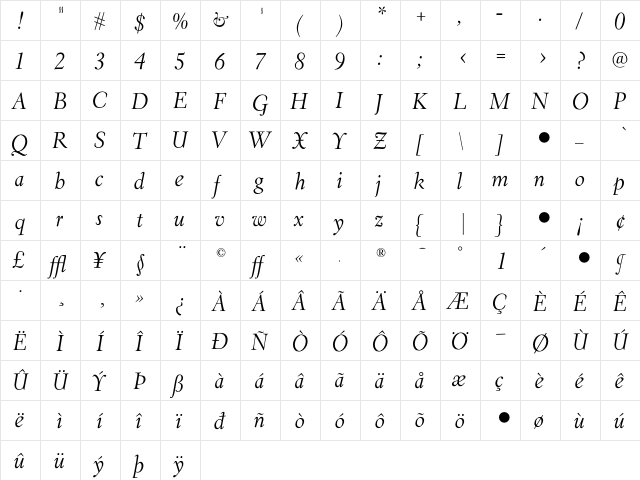
EldoradoDisplay Italic
Design Context for EldoradoDisplay Typeface
EldoradoDisplay brings ornamental detail and strong personality to headlines and identities, where visual impact matters more than quiet functionality. Its italic angle brings a sense of urgency and motion to the letterforms.
Font Pairing: Pair with a clean neutral sans-serif for body copy to let EldoradoDisplay's character lead without overwhelming the composition.
Pro Tip: Treat EldoradoDisplay as the centrepiece of your typographic hierarchy. One strong heading set in a decorative face can carry an entire layout.